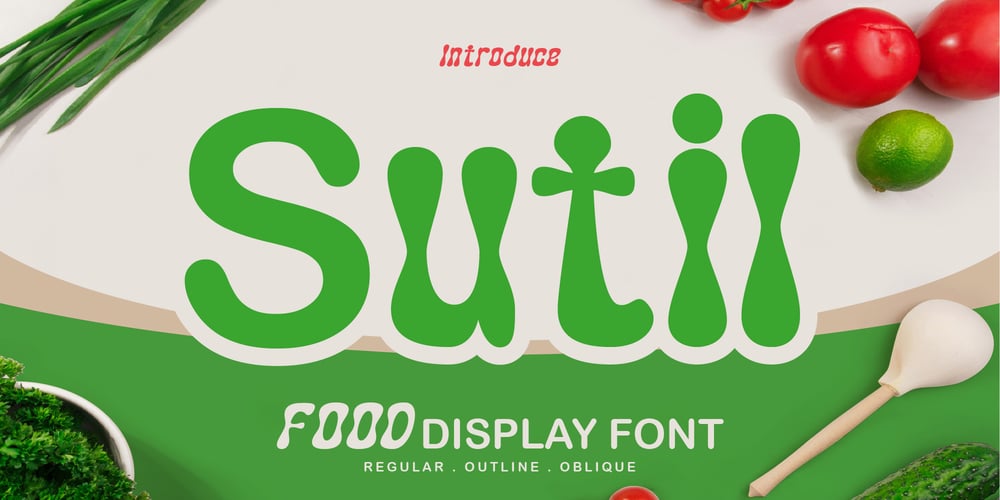
Sutil
Sutil font
Sutil Font Family was designed by Eric Kurniawan and published by Burntilldead. Sutil contains 3 styles and family package options. Meet Sutil, a fresh, bold and playful food font, perfect for food branding, restaurant menus, food packaging, and culinary design projects. Its smooth, wavy letterforms bring a lively and inviting feel, making your design look delicious and eye-catching.Designed for food-related businesses, cafes, bakeries, and organic product branding, Pawon comes in three styles: Regular, Outline, and Oblique. Whether you’re creating a logo, menu, social media content, or food advertisements, Sutil adds a tasty and fresh touch to your designs.Features: A – Z set (Uppercase & Lowercase) Number Punctuation Alternate Ligature Multilingual